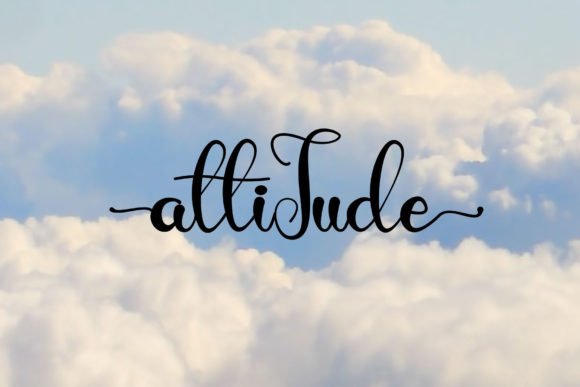
When Words Speak Volumes Have you ever been brainstorming a new design project and suddenly, the perfect font pops into your mind? For many designers, this moment of clarity is the spark that sets their creativity ablaze. For us, that spark was ignited by the Attitude Font – a beautiful, elegant script font that adds…